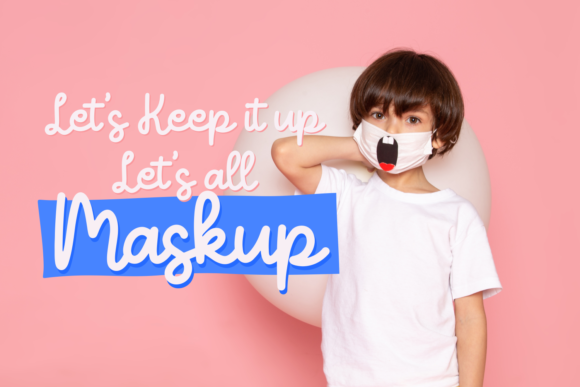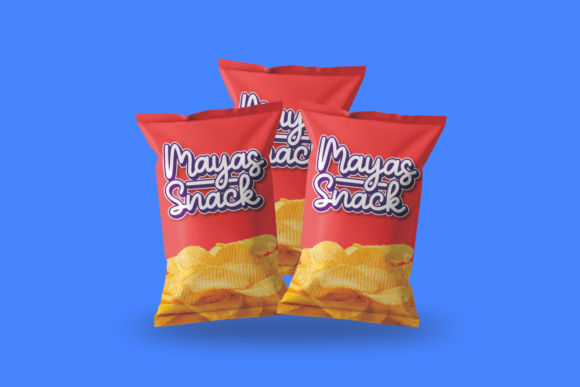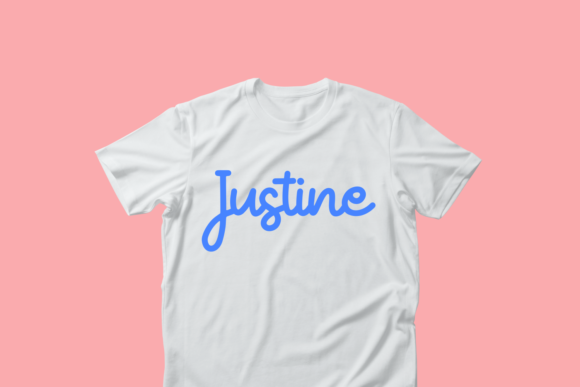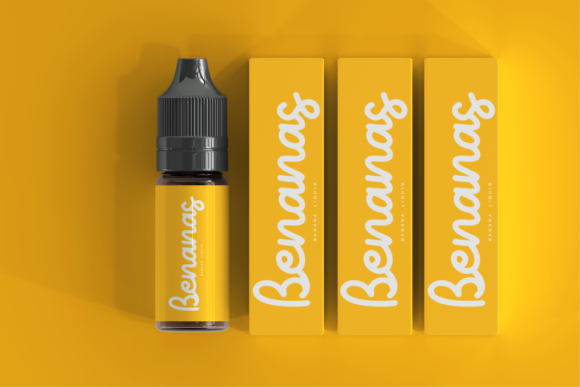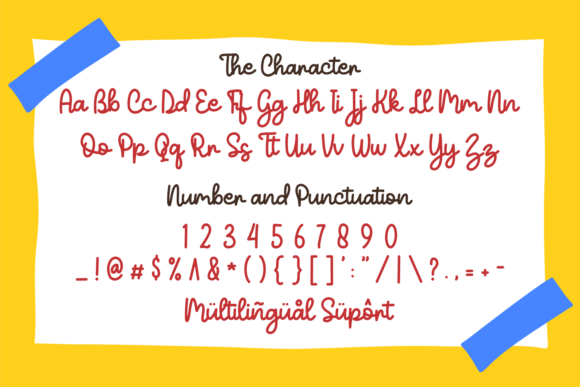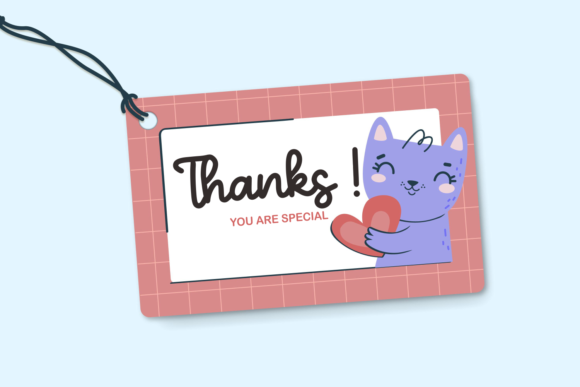
Introduction to Penapik Font
Have you ever been working on a creative project and suddenly, you stumble upon the perfect font that elevates your design to a whole new level? For many designers, that moment is pure magic. It’s the moment when everything falls into place, and your vision starts to take shape. For us, that moment is often associated with the Penapik Font, a flowing handwritten font that exudes elegance and sophistication.
What makes the Penapik Font truly special is its unique blend of style and versatility. With its incredibly distinct and timeless design, it’s perfect for a wide range of creative projects, from elegant wedding invitations to high-quality branding materials. Whether you’re working on a design project or just looking for a free download to add some flair to your social media graphics, the Penapik Font is a valuable resource that’s sure to impress.
Key Features of Penapik Font
- Unique, handcrafted design elements that add a touch of elegance and sophistication to any creative project.
Honest Review: Penapik Font
As a designer, I’m always on the lookout for high-quality design resources to elevate my creative projects. The Penapik Font has been a recent addition to my toolkit, and I’m excited to share my honest review with you.
- High-quality design: The font is clean, modern, and visually appealing, making it an excellent choice for creative projects requiring a sophisticated look.
- Limited font styles: The Penapik Font is available in a single style, which might limit its versatility for designers requiring a range of font styles.
- No extensive character set: The font’s character set is relatively limited, which might be a concern for designers working on projects requiring a wide range of languages or special characters.
Overall, I’m impressed with the Penapik Font’s clean design and versatility. While it has some limitations, it’s an excellent choice for designers working on graphic design, logos, and UI/UX projects. I’d recommend giving it a try and seeing how it can enhance your creative projects.
For the most out of Penapik Font, use it for titles, headings, and body text in creative projects, such as graphic designs, social media graphics, and marketing materials.